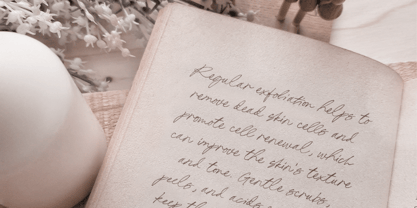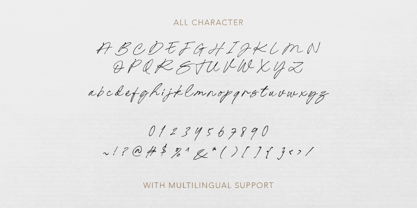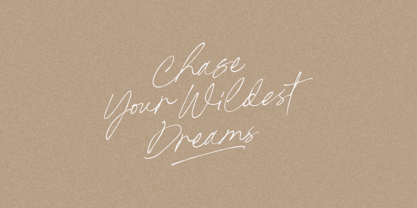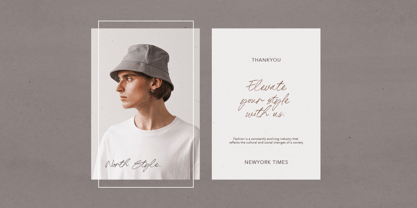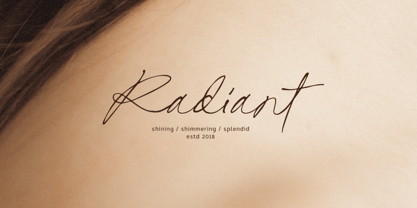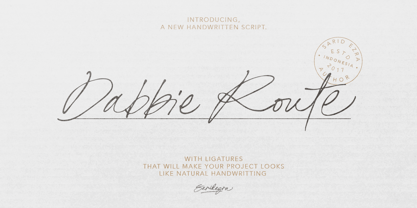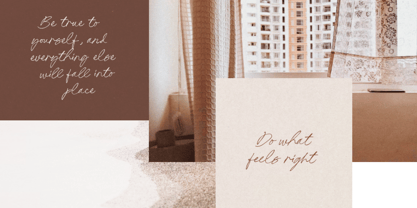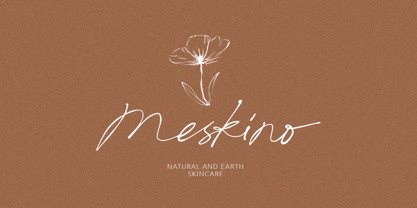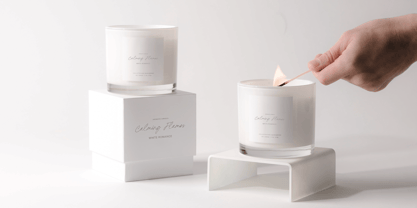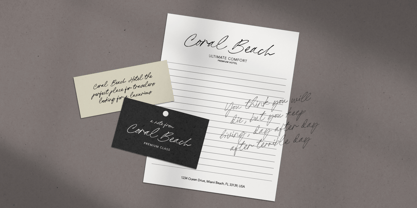
Dabbie Route
by Sarid Ezra
The Dabbie Route Font Family was designed by Sarid Ezra and published by Sarid Ezra. Dabbie Route contains 1 styles. More about this family
Dabbie Route is a handwriting script with many ligatures that will make your project looks more natural. This font can be used for a variety of purposes, including quotes, branding, or wedding invitations. Its extensive ligature collection enhances the natural and distinctive appearance of your project. You can access the underline with opentype feature, just type underscore + number (1-3) for example Hand_3writing. Moreover, this font is compatible with multiple languages, ensuring versatility and accessibility.